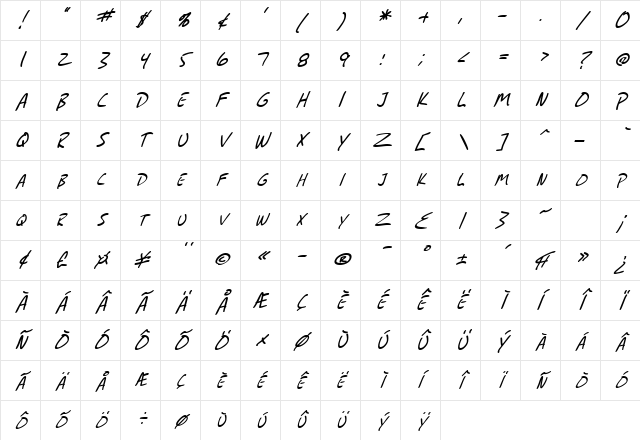
Complete SF Grunge Sans SC Italic glyph index. Displaying only characters natively supported by SF Grunge Sans SC Italic font.
SF Grunge Sans SC embraces imperfection - its rough, textured character adds raw authenticity to designs that want to feel lived-in and unconventional. The slanted form adds forward momentum and visual energy.
Pro Tip: Use SF Grunge Sans SC at larger sizes where the texture and irregularity of each letterform can be clearly seen - it loses its character at small sizes.